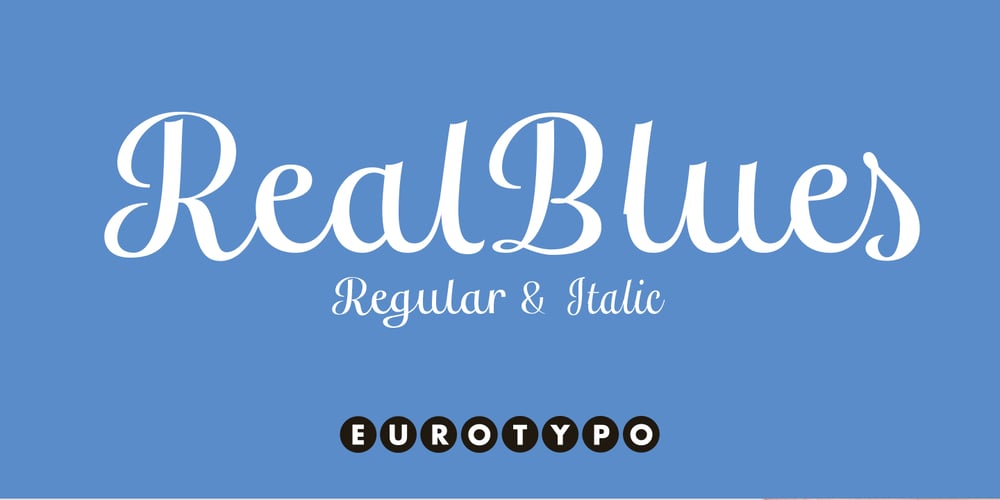
Real Blues Font Family was designed by Carine de Wandeleer and published by Eurotypo. Real Blues contains 2 styles and family package options. RealBlues is a useful collection of two hand lettering fonts designed for expressive graphic designs. This family include OpenType features: ligatures, swash letters, contextual and stylistic alternates. All of this will give your designs extra flair and uniqueness, giving the impression of totally believable handwork.RealBlues fonts has an extended character set to support Central and Eastern European as well as Western European languages.RealBlues may be perfect for logos, brands, children’s books, restaurants, catering, cafes, packaging, magazines, weddings, beer labels, film and clothing.